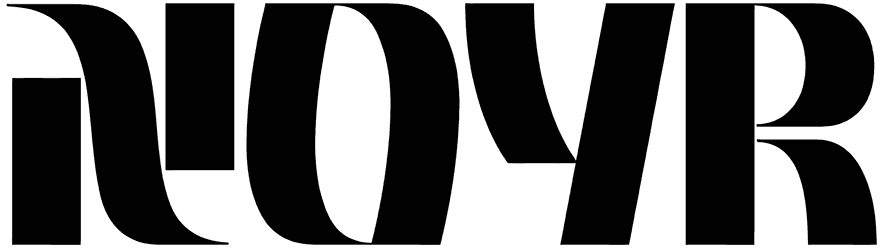
Noyr Font
Don’t miss one of the greatest typography fonts recommended by RB called Noyr. This is a cool way to guarantee the success of your design as you customize your words with the refined letters of this modern font.
It should be such a blessing to watch Noyr take your lettering to the next level and attract all that attention from the first impression. Who wouldn’t want such a charming font as their logo for an art studio or advertising company?